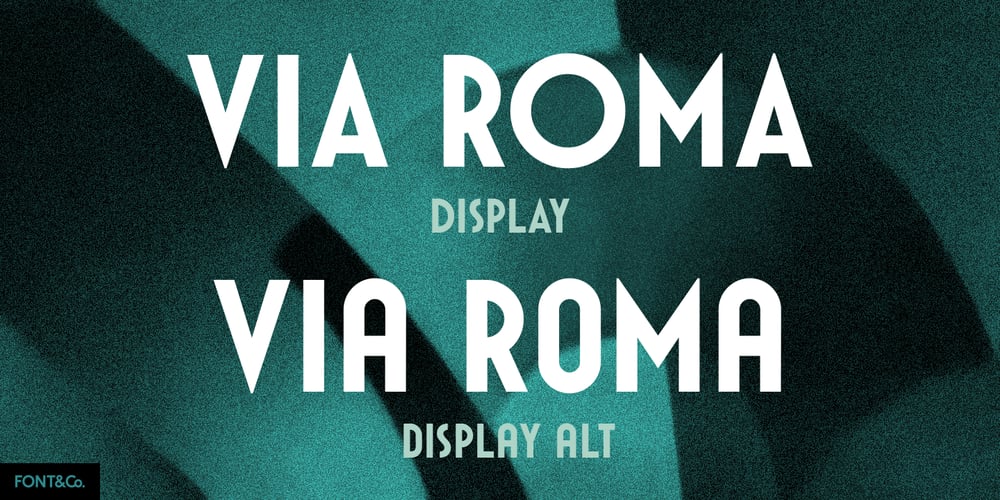
Via Roma Display Font Family was designed by Francesco Gianesini and published by Font&Co.. Via Roma Display contains 2 styles and family package options. A font inspired by regime propaganda inscriptions found in Italian institutional and civic architecture of the 20’s and 30’s. Bold, severe lettering, suggestive of pre-war Italian Art Deco and American Depression Modern aesthetics.